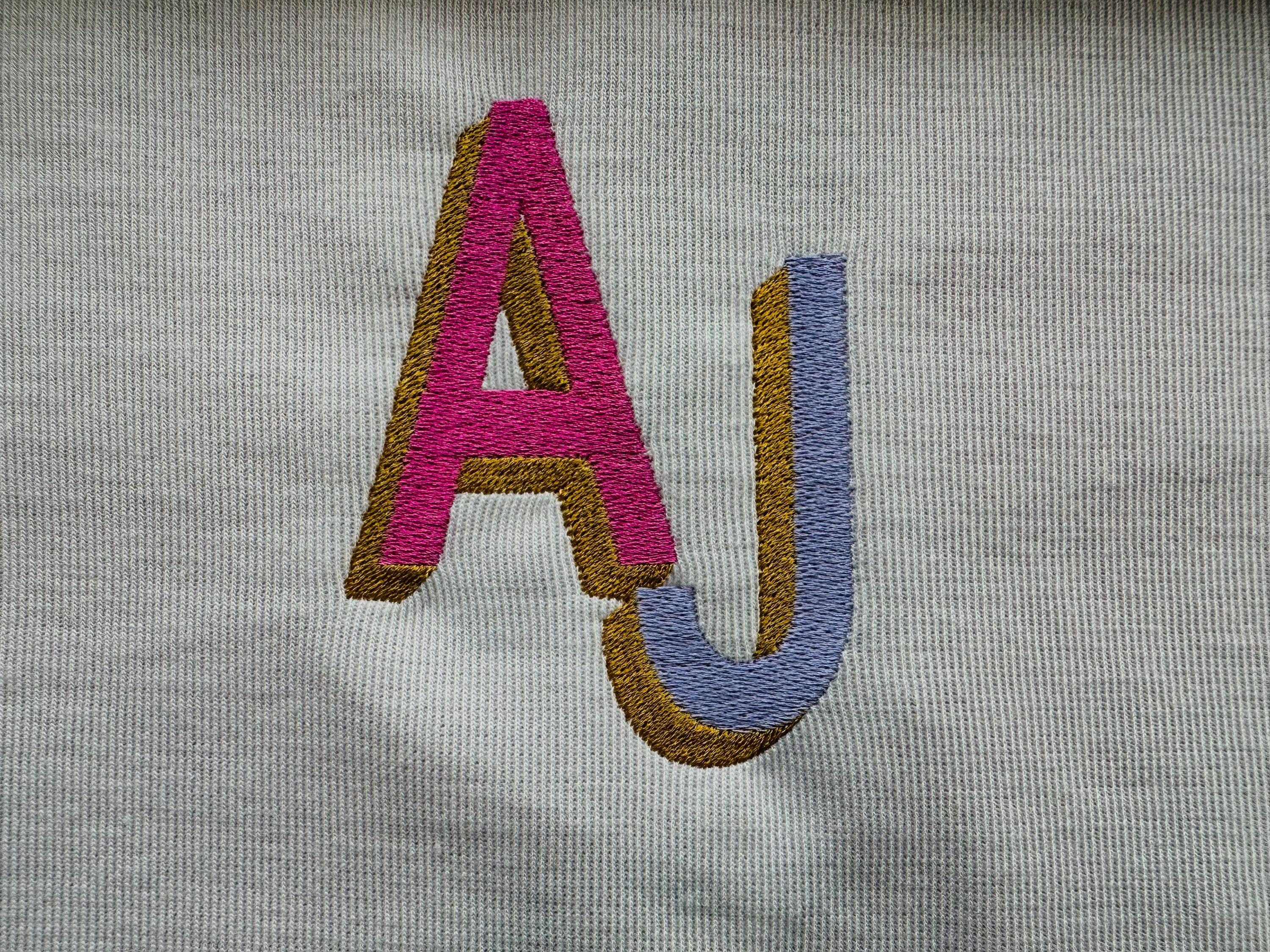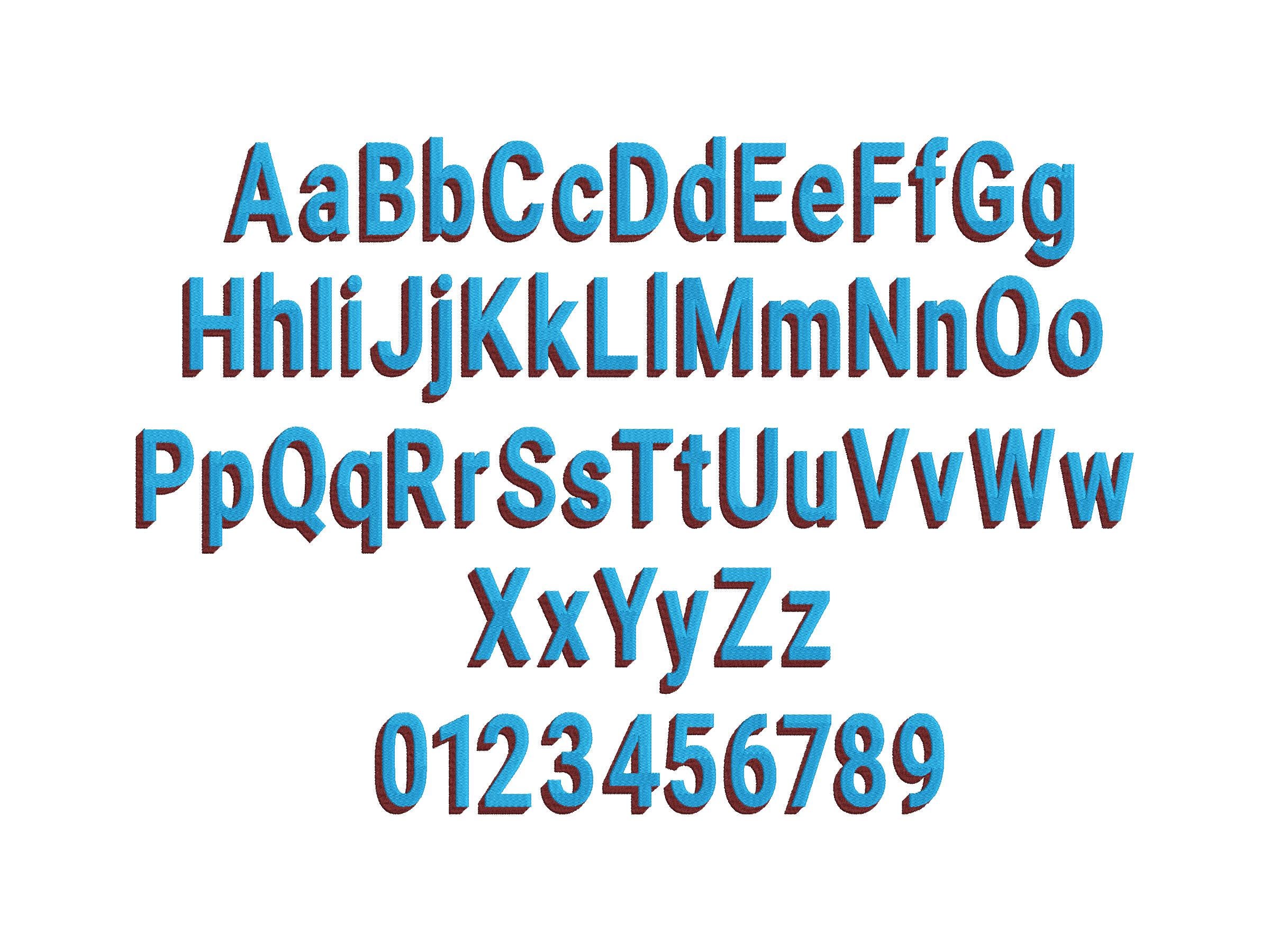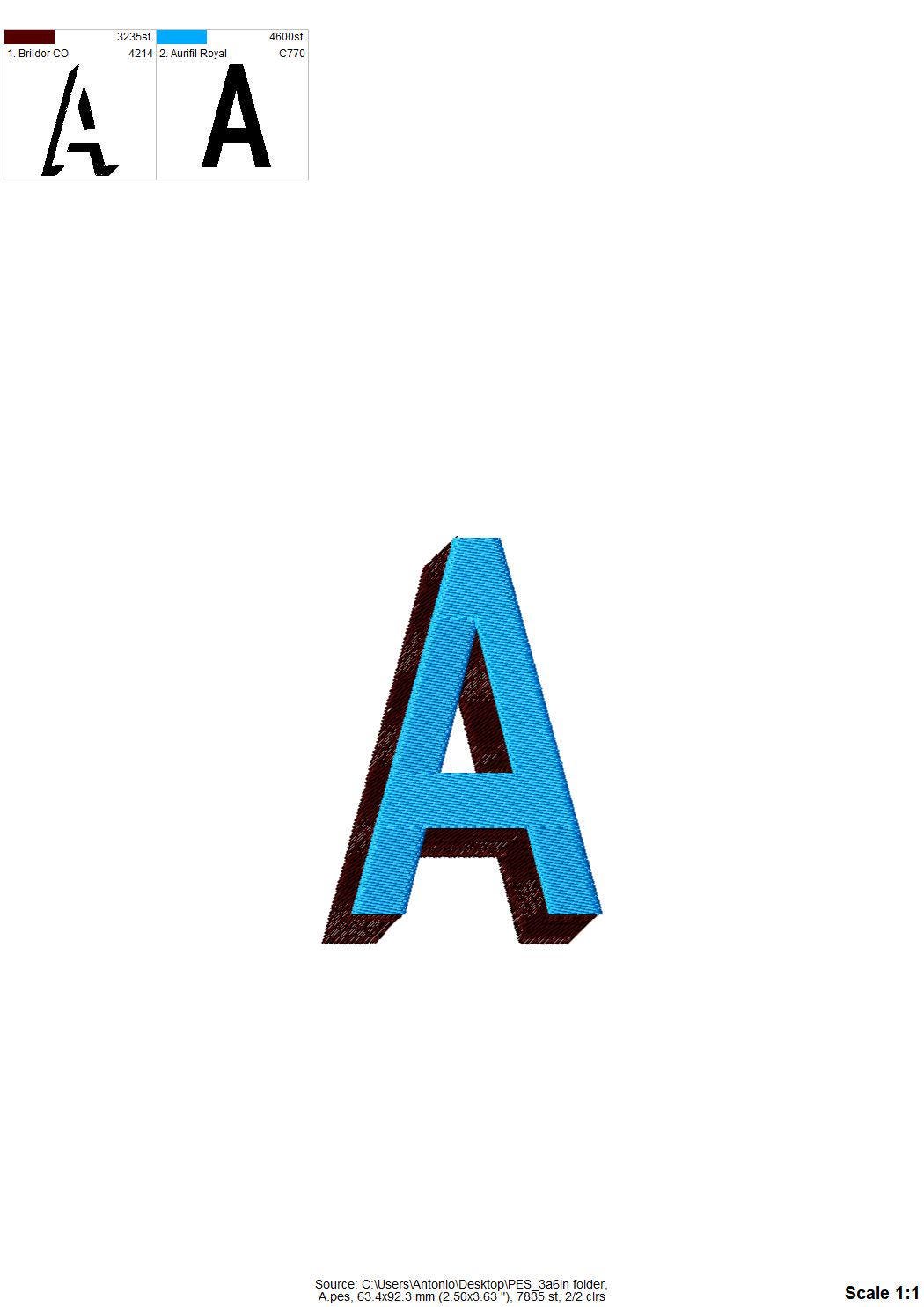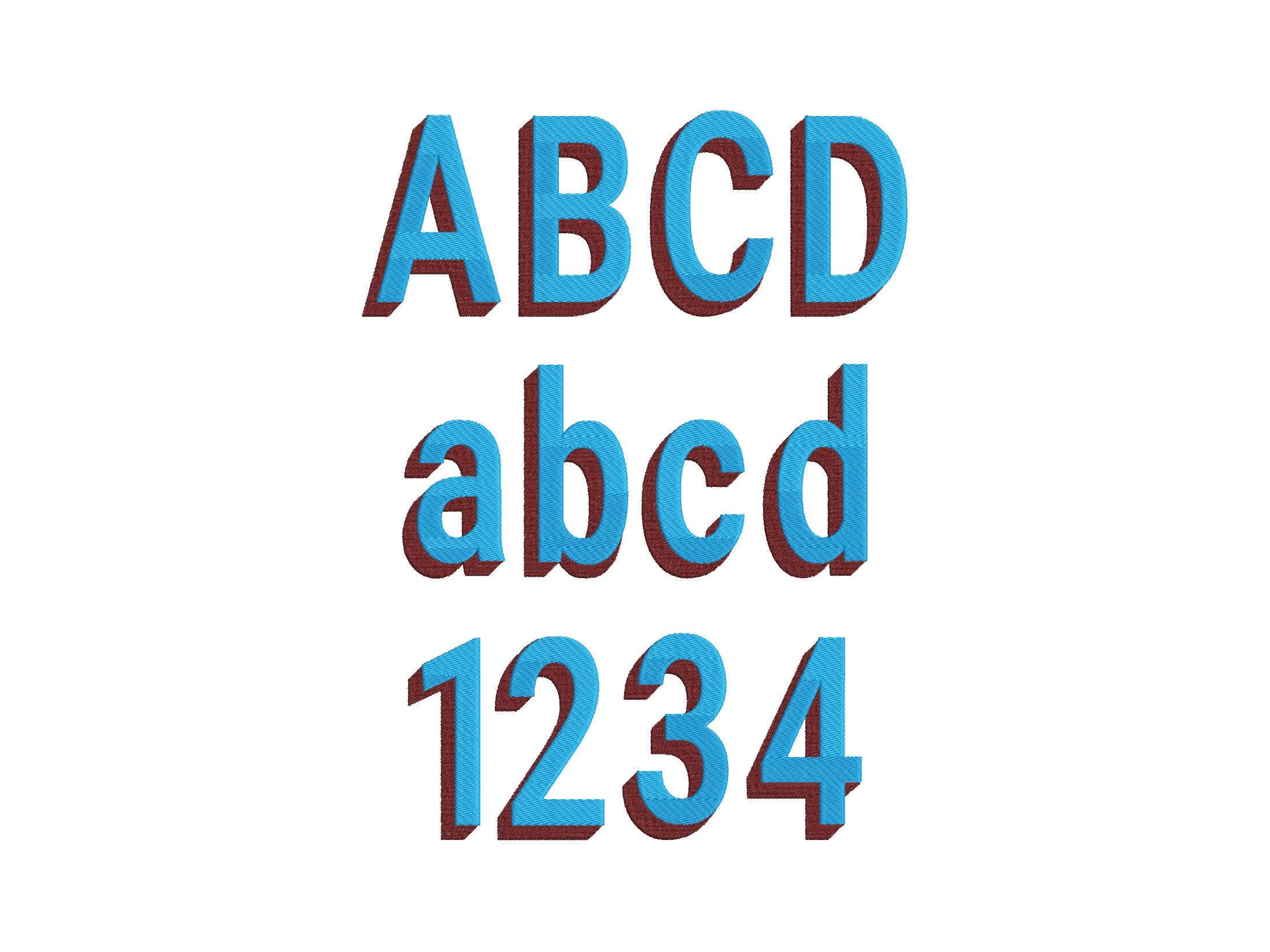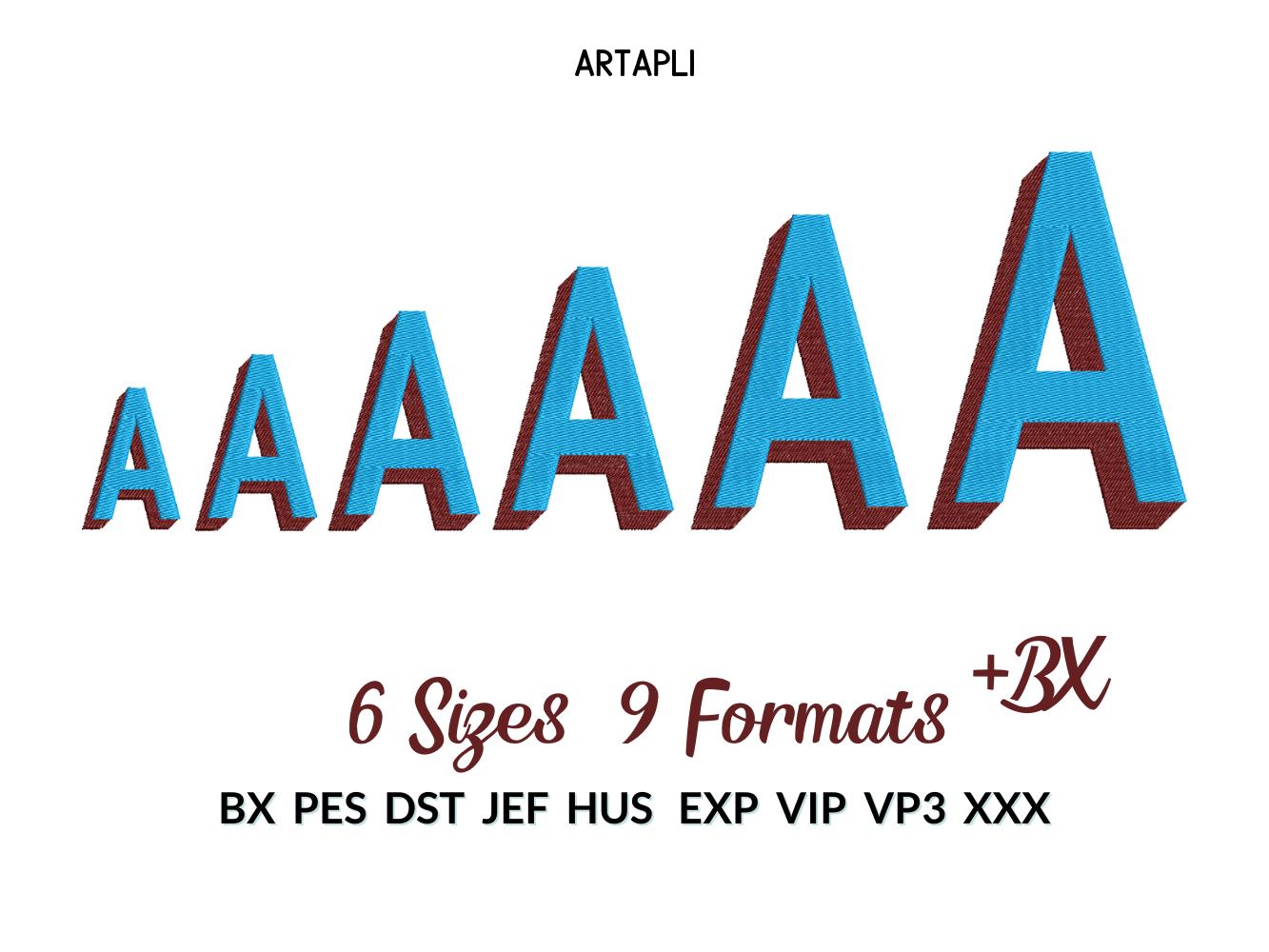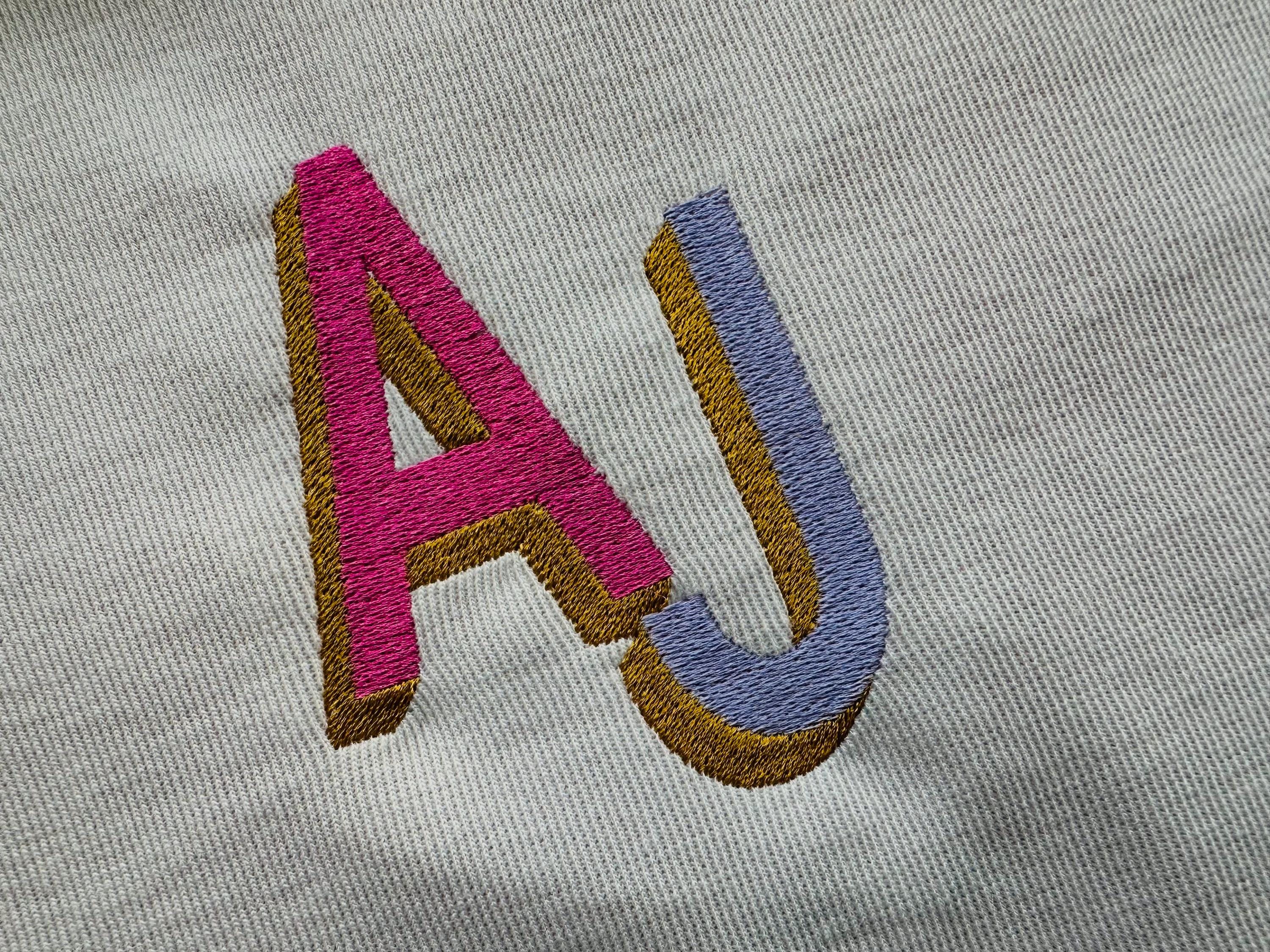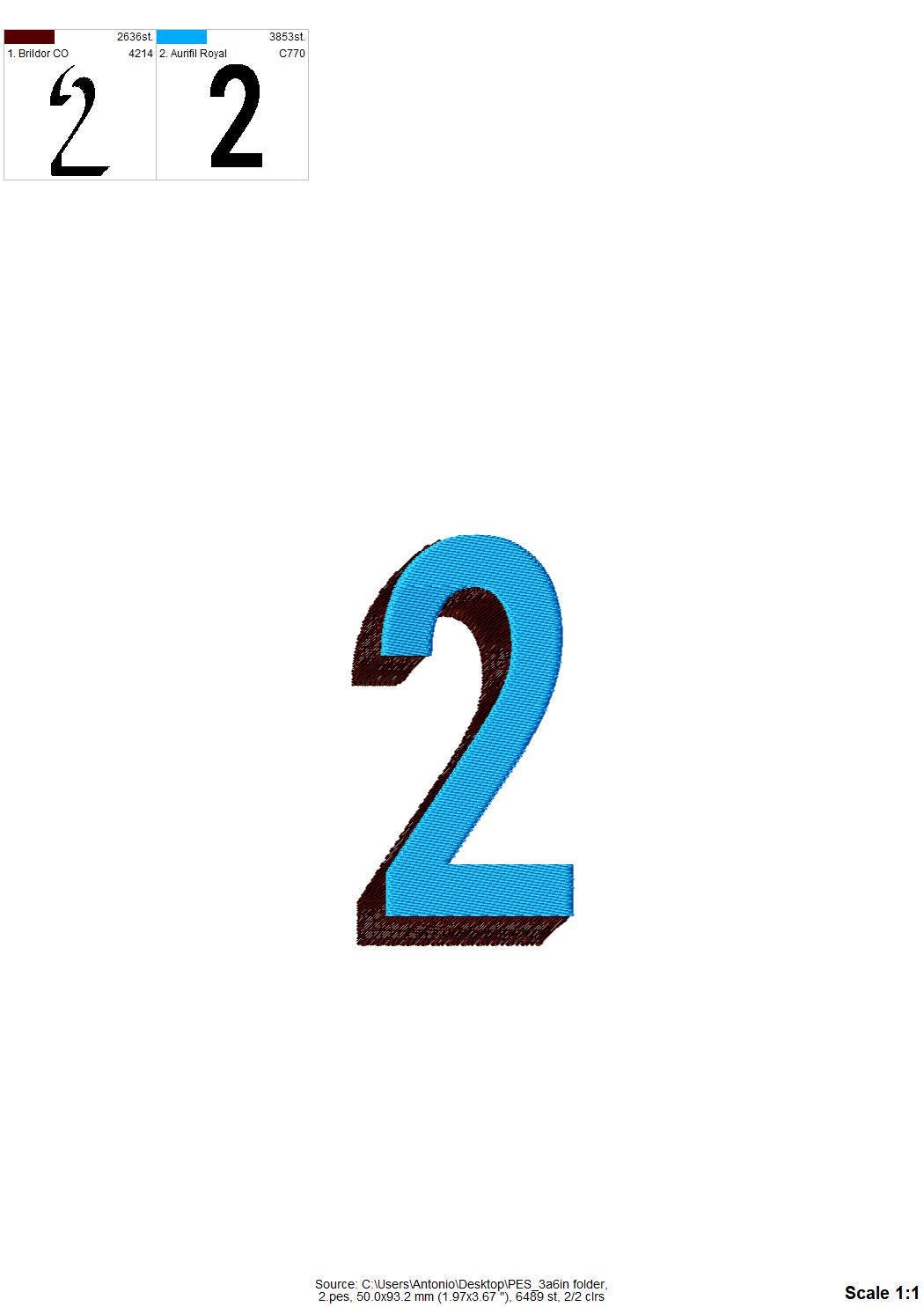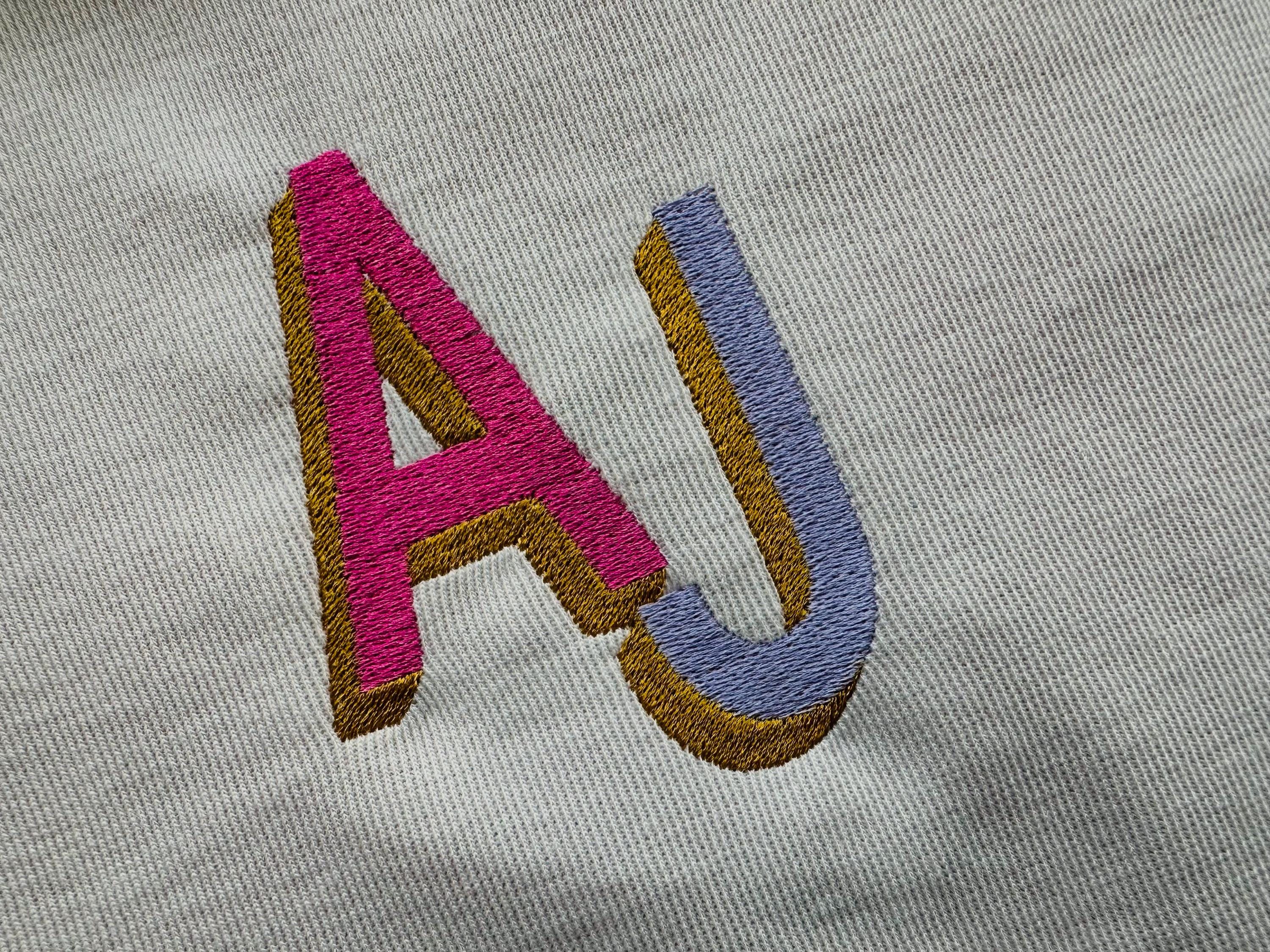
Block type Shadow Font fill stitch Varsity Collegiate alphabet machine embroidery designs sports monogram letters numbers with shadow, BX
Whole alphabet A-Z uppercase and lowercase letters, and numbers 0-9.